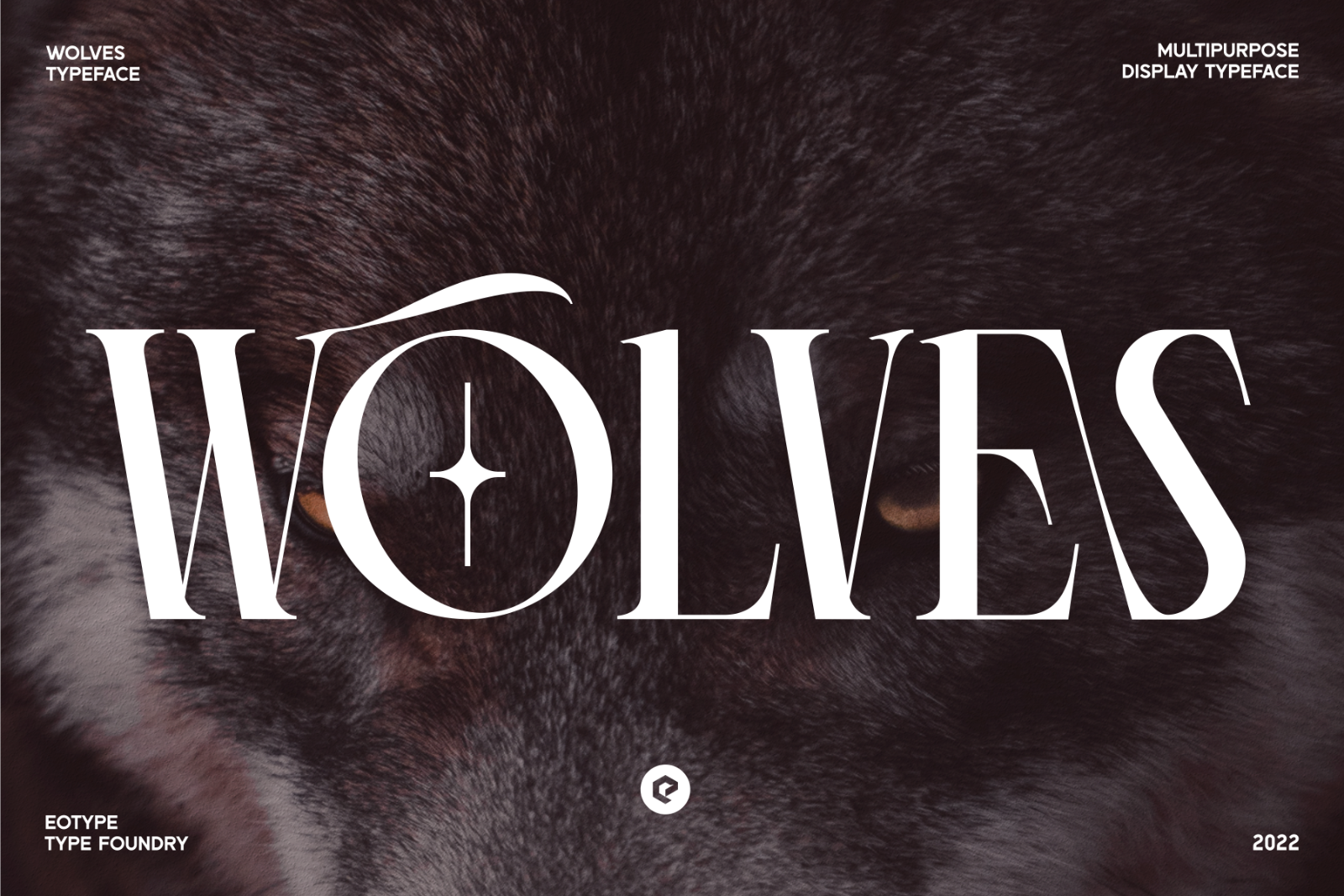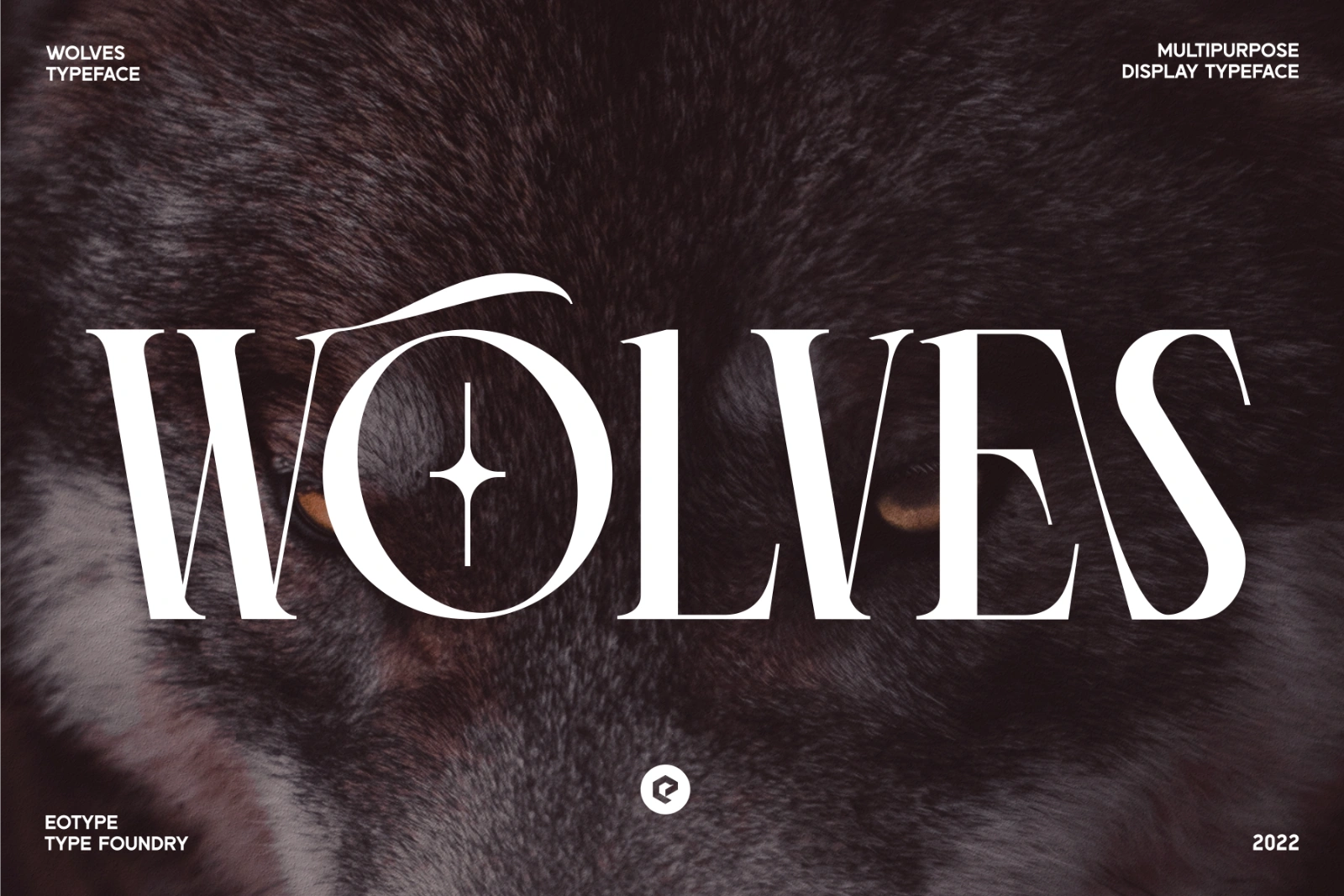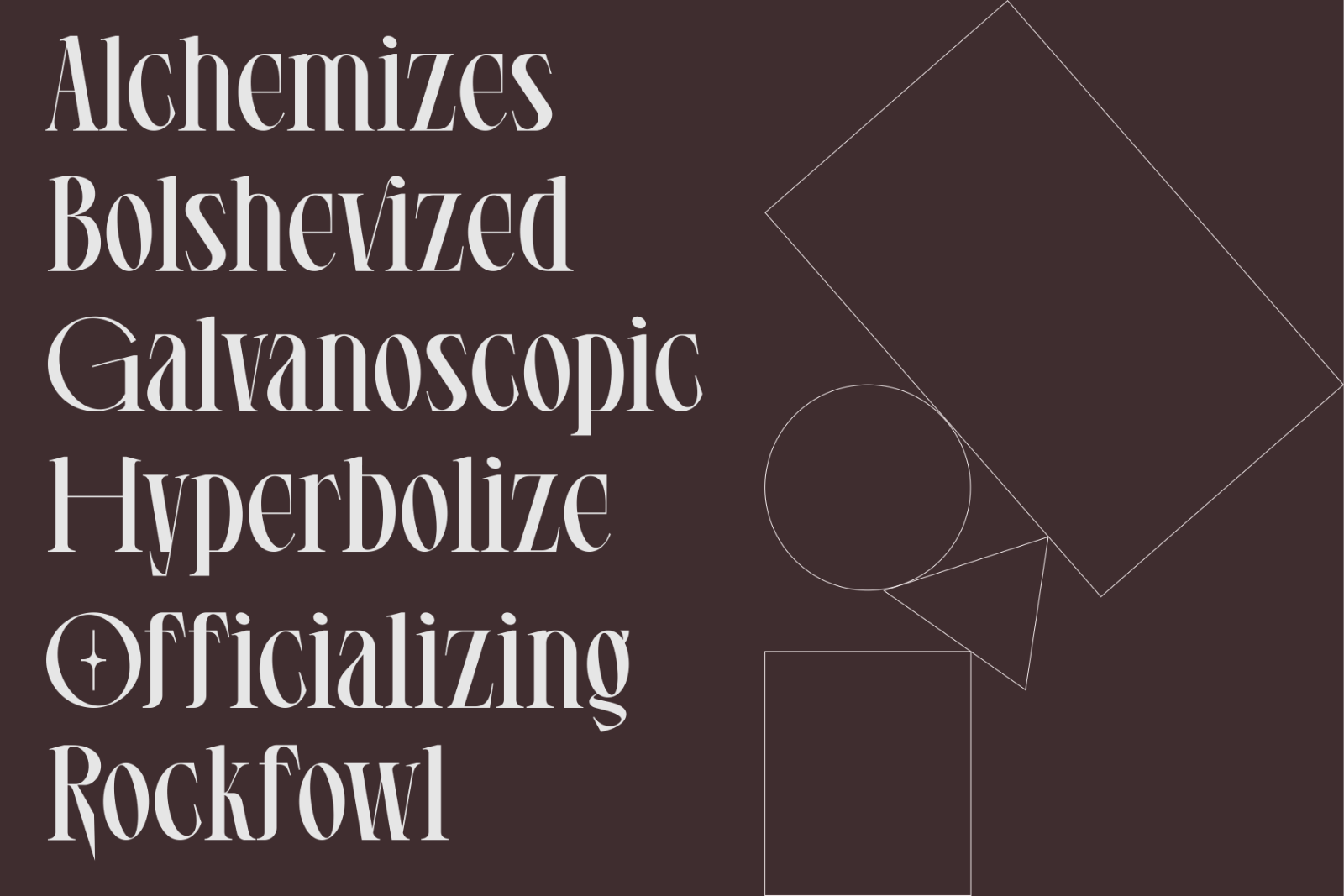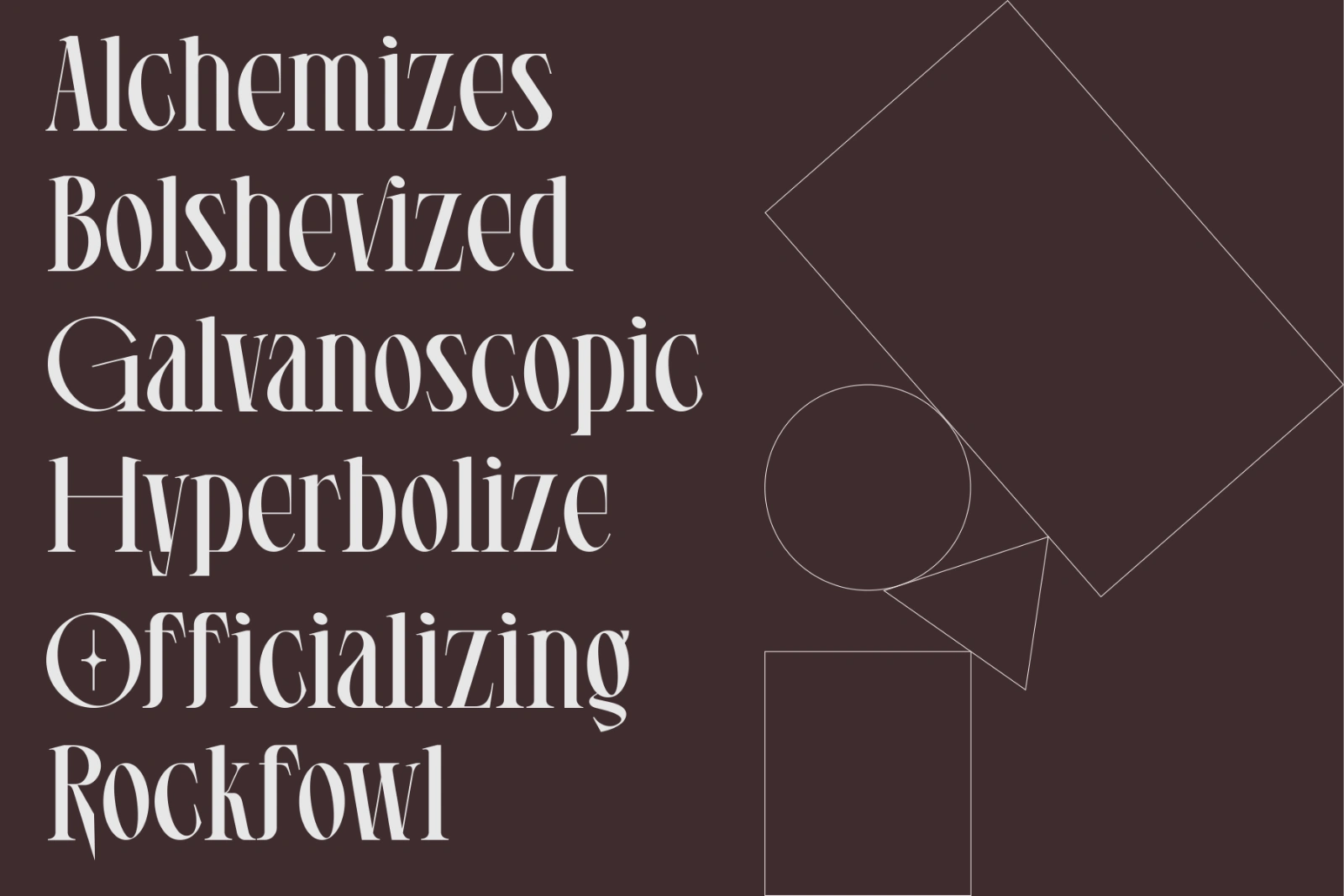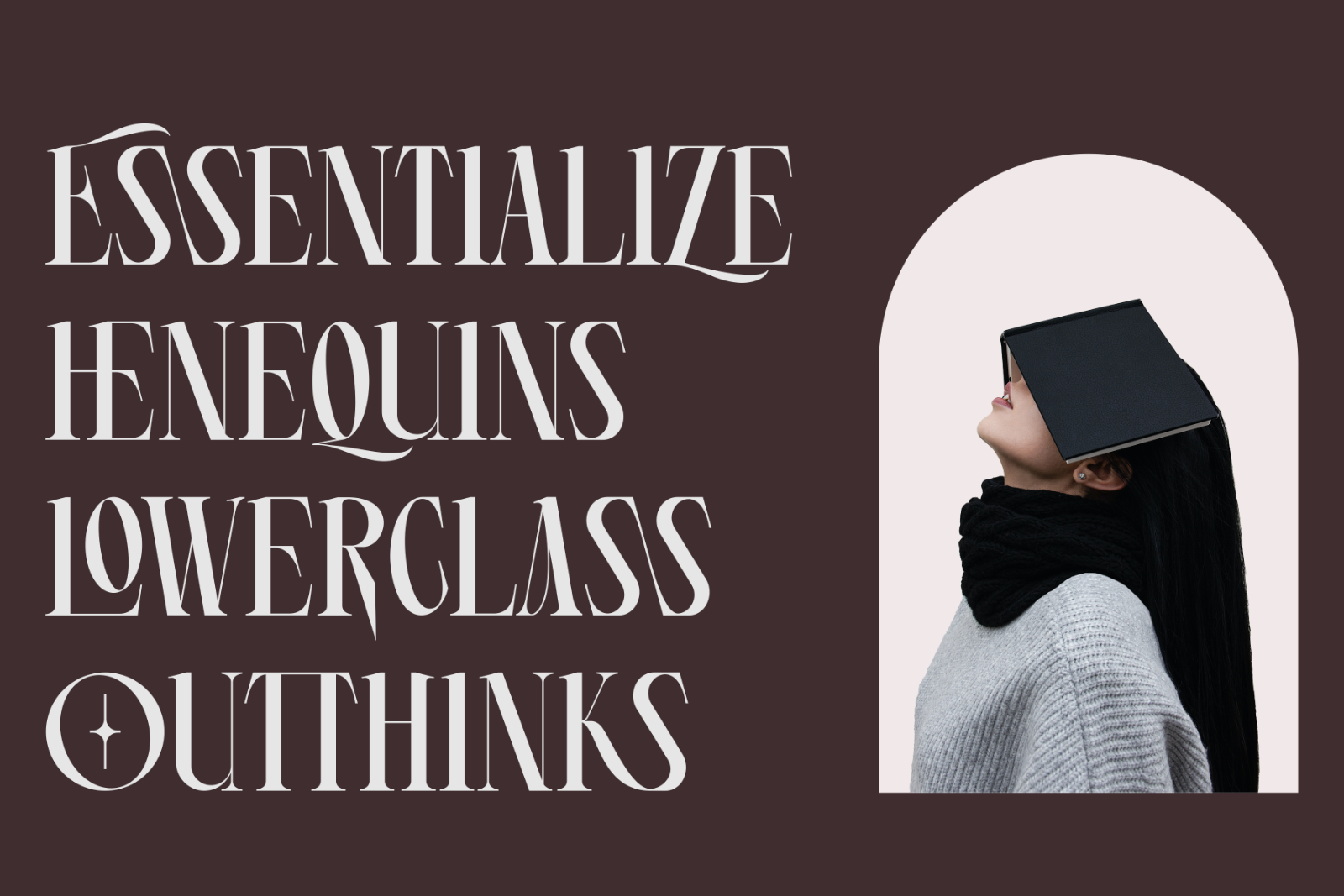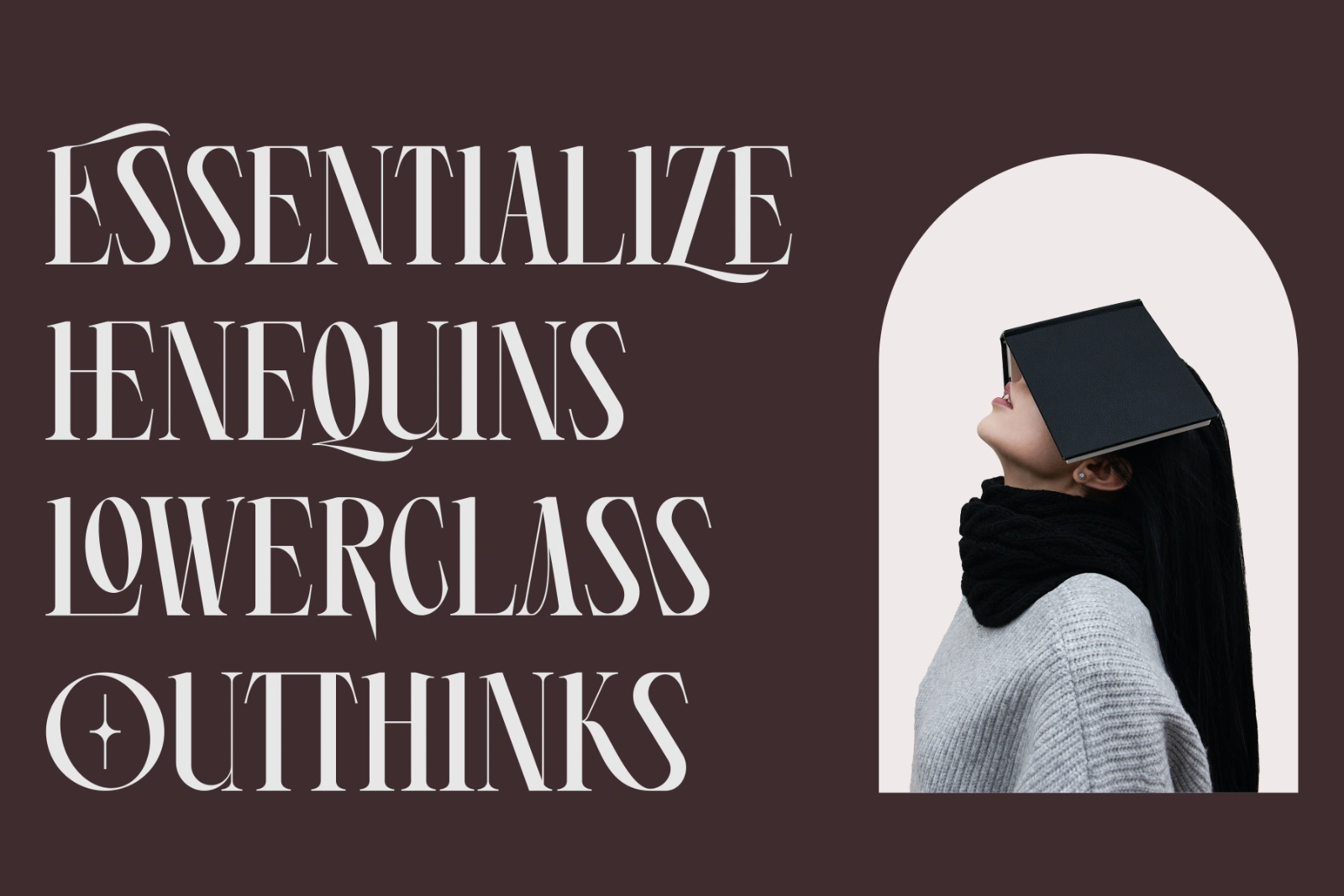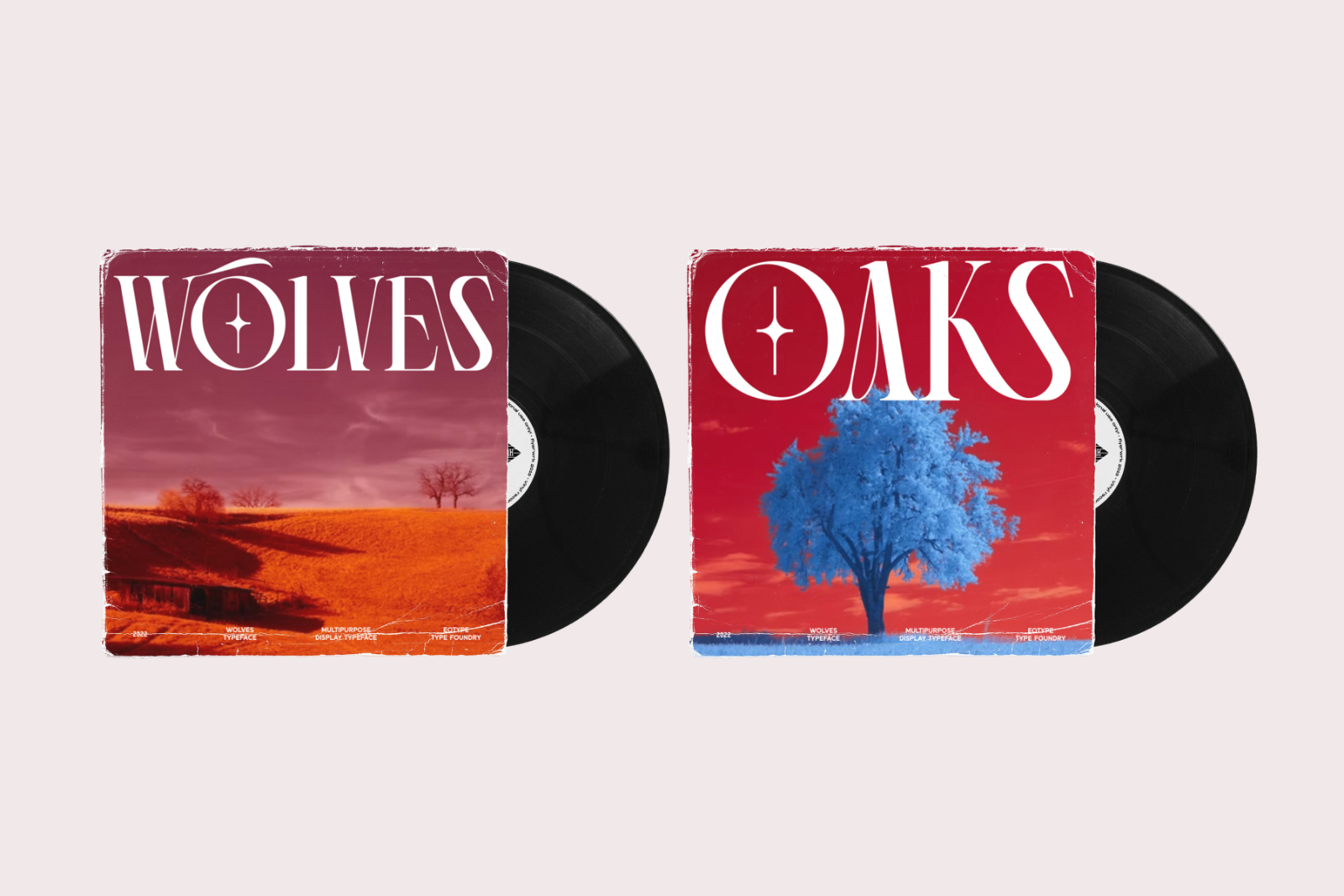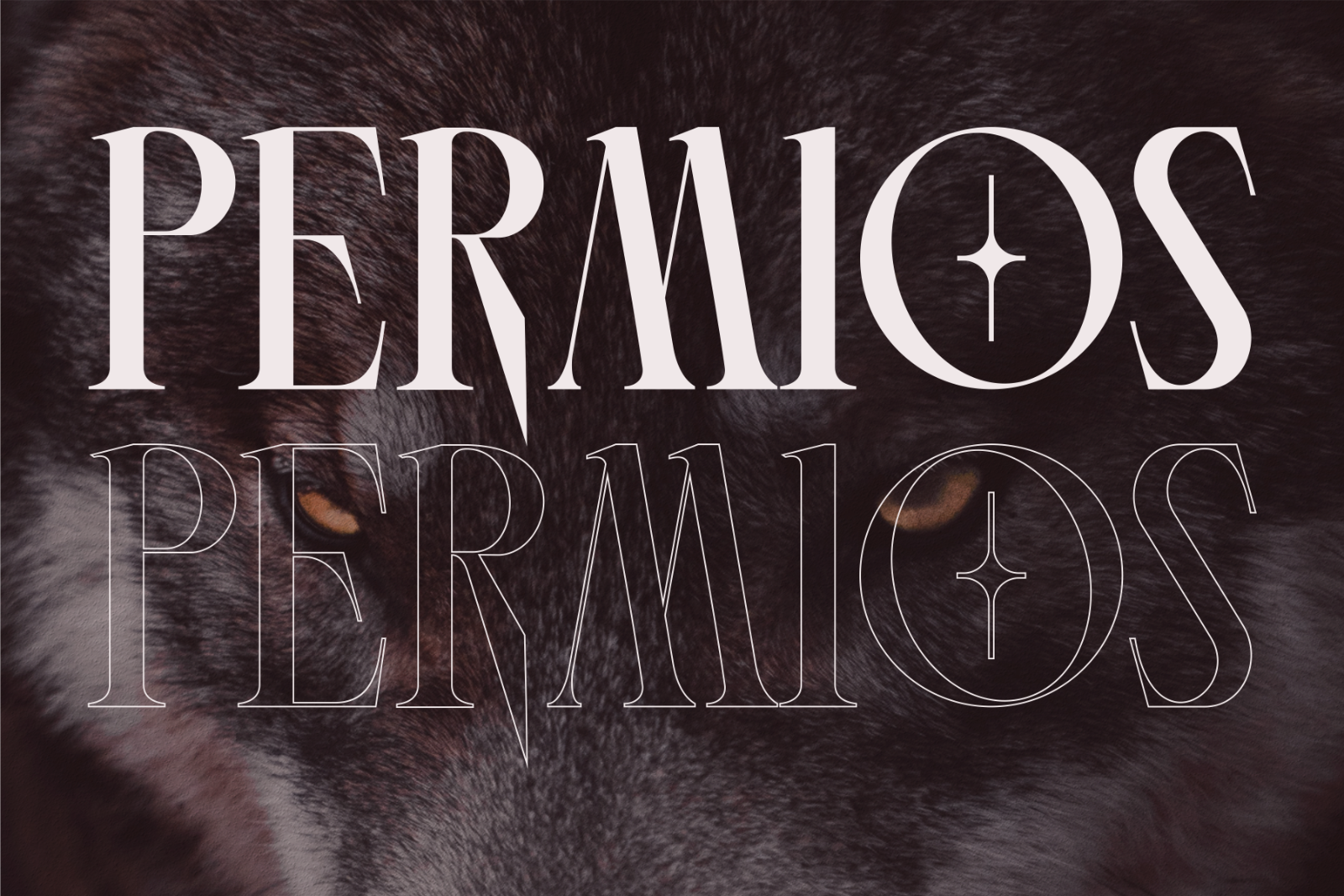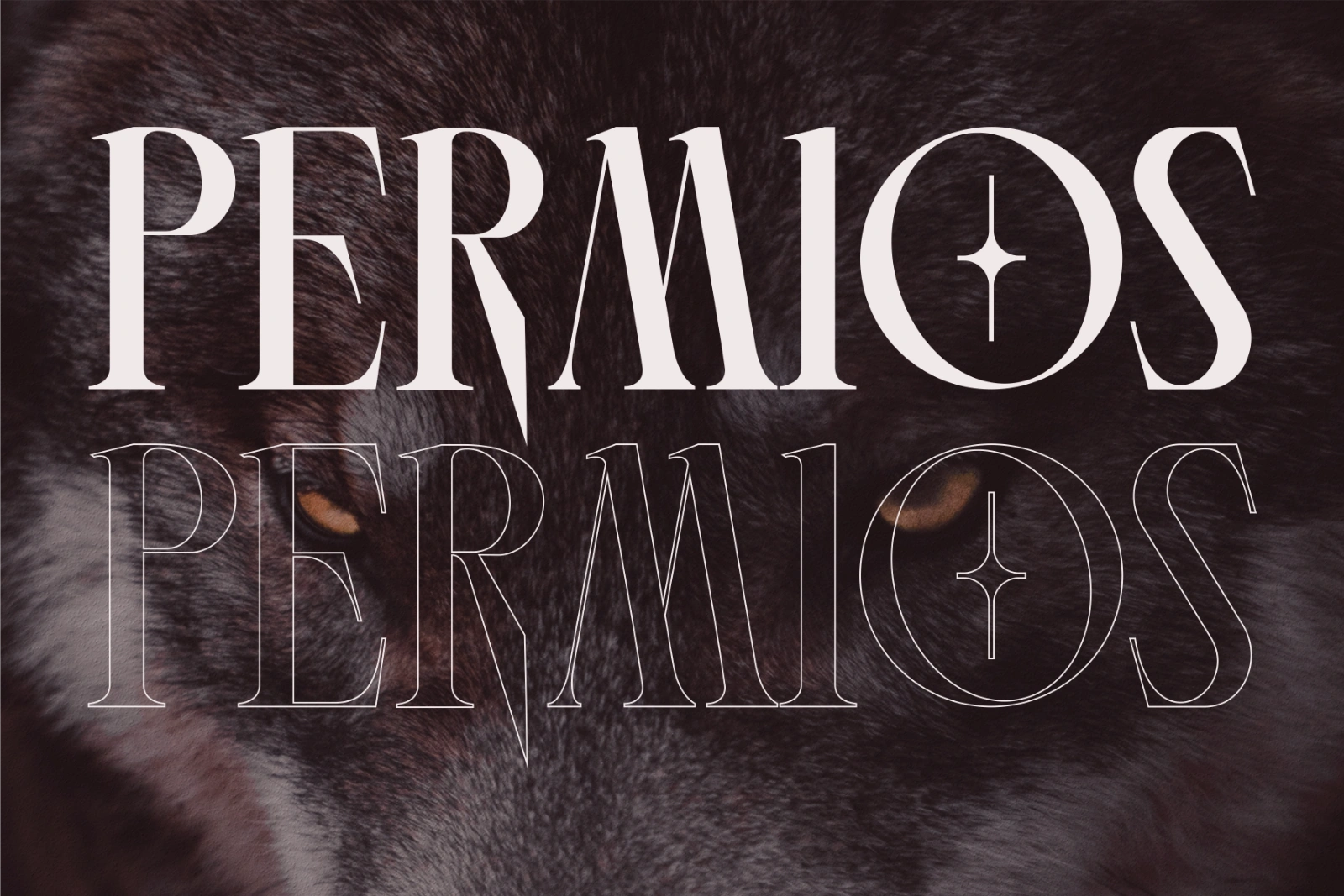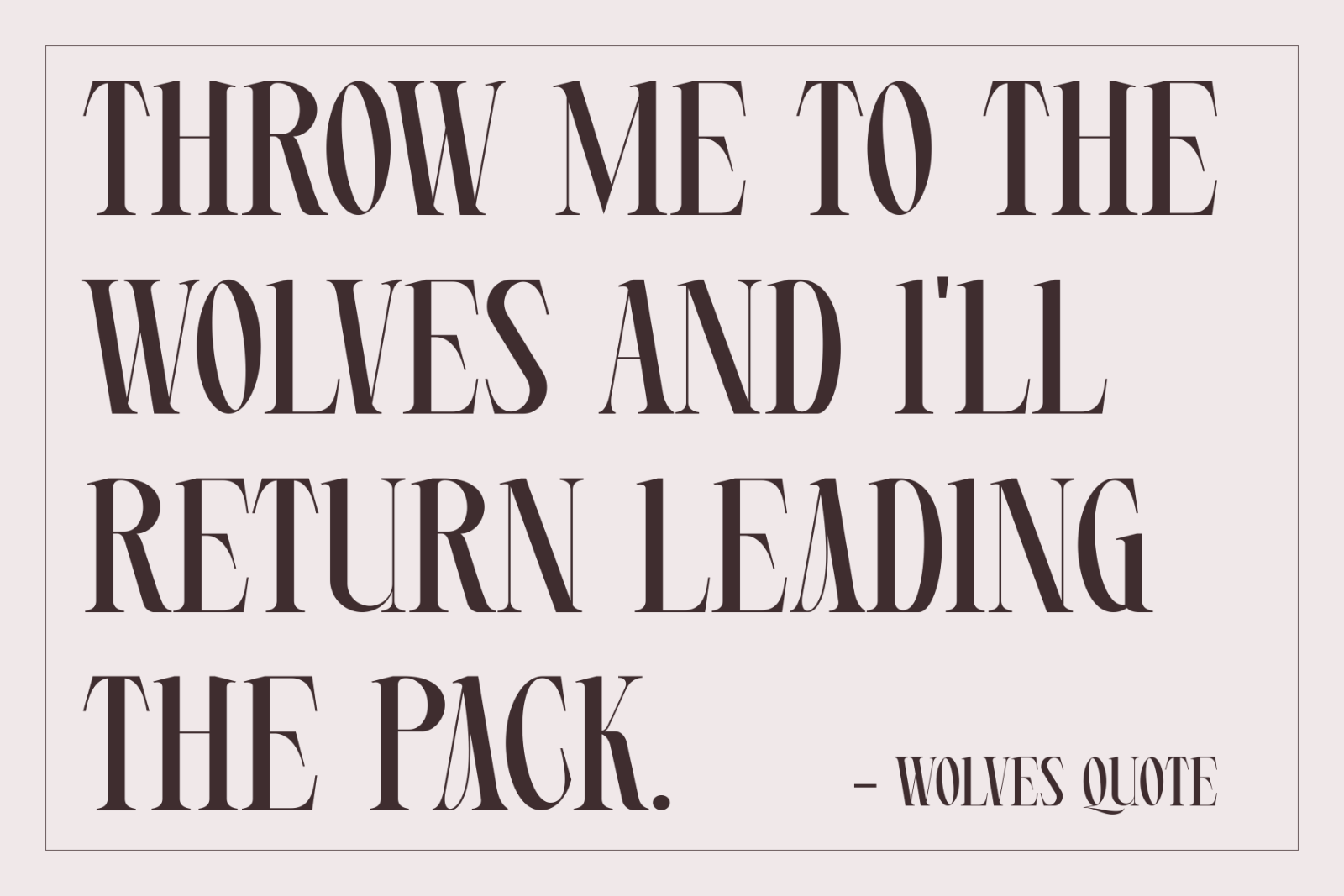
Wolves font is a serif condense font with a sleek and elegant appearance. This font is created as a unique professional multipurpose font that you can use in your projects. This font contain ligatures and alternative styles.